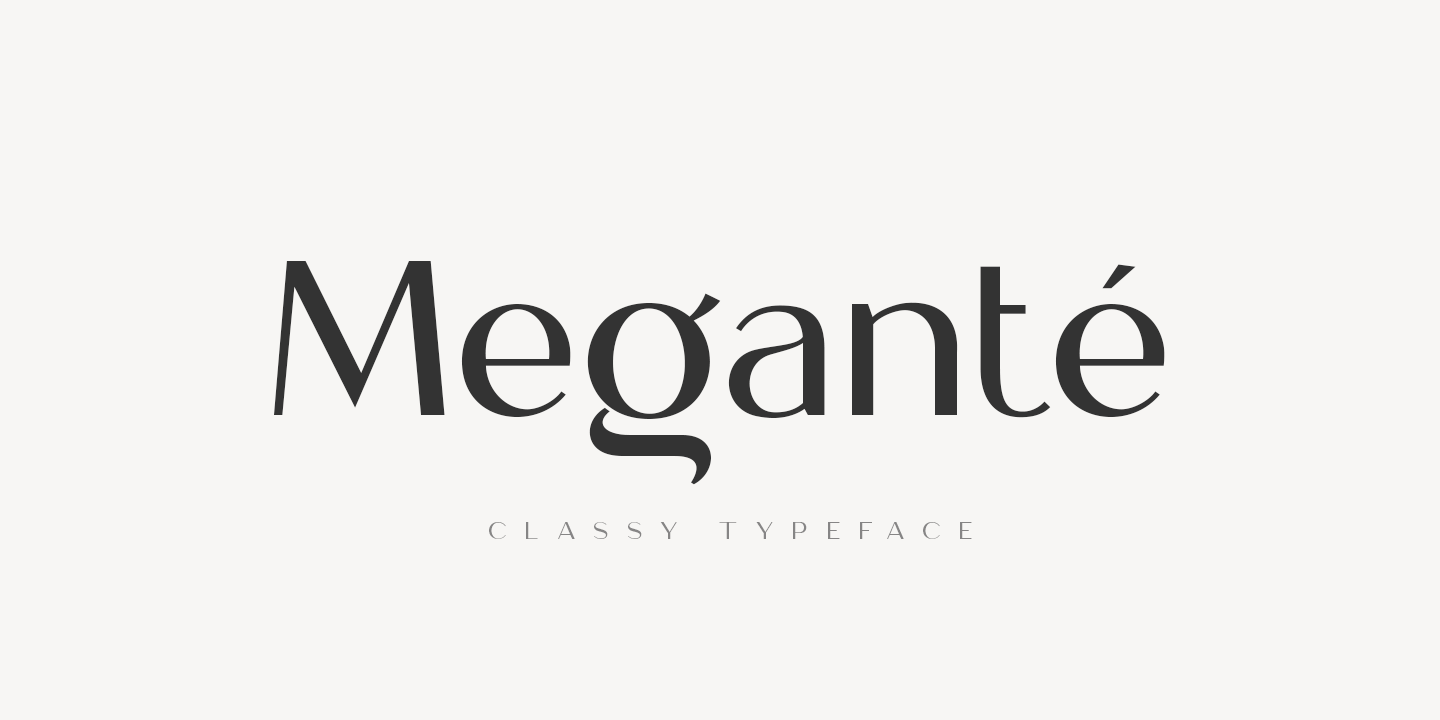
Megante Font Free Download is a sophisticated serif typeface that blends classic elegance with contemporary flair. Perfect for editorial design, branding, invitations, packaging, and any project that requires a refined, professional touch.
What makes Megante Font so exciting is its clean lines, high contrast strokes, and graceful curves that create a timeless and stylish look. This font enhances readability while adding a subtle artistic vibe to your typography.
The Megante Font family includes Regular, Italic, Bold, and Bold Italic styles, providing versatile options for hierarchy and emphasis in your designs.
Whether you’re designing luxury branding, magazines, or elegant event materials, Megante Font Free Download offers both sophistication and versatility. You can test it for free, but commercial use requires a license. Let Megante elevate your projects with its graceful presence.